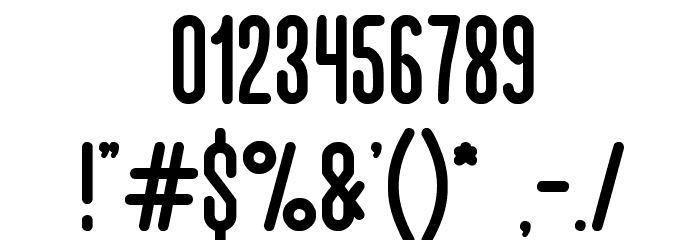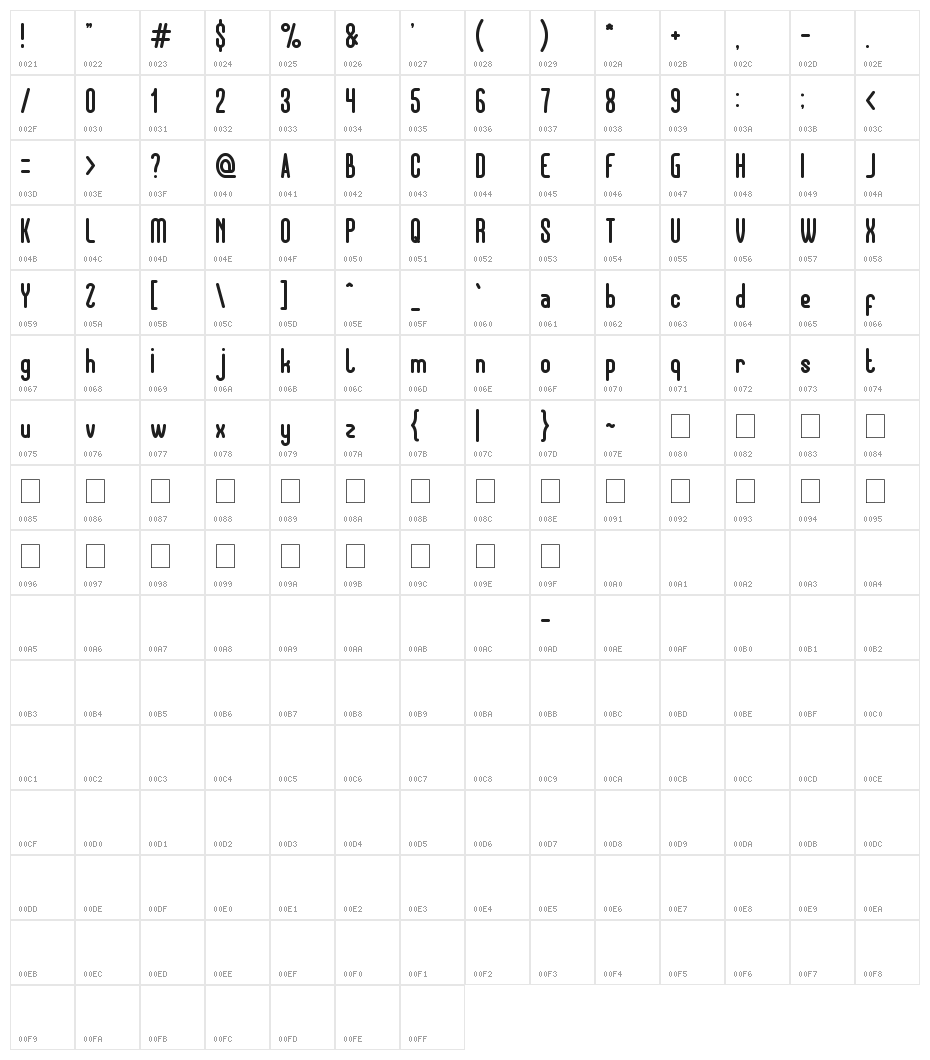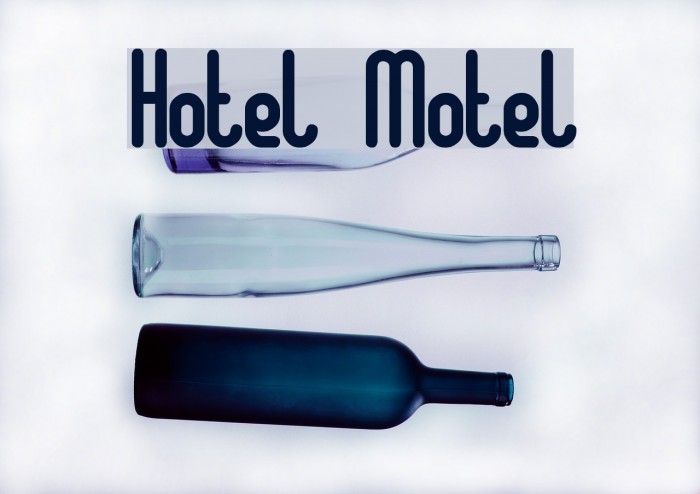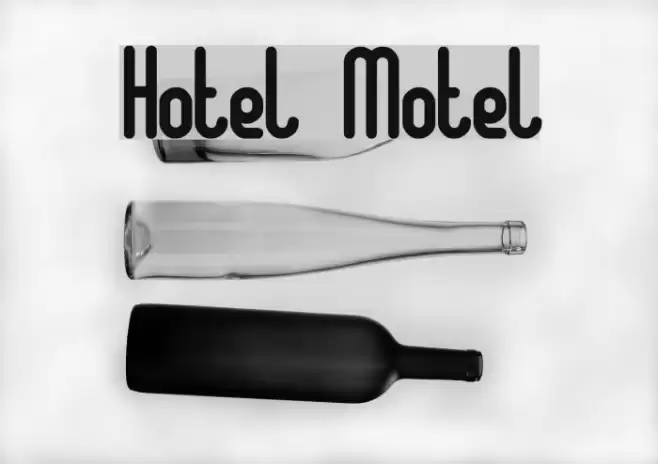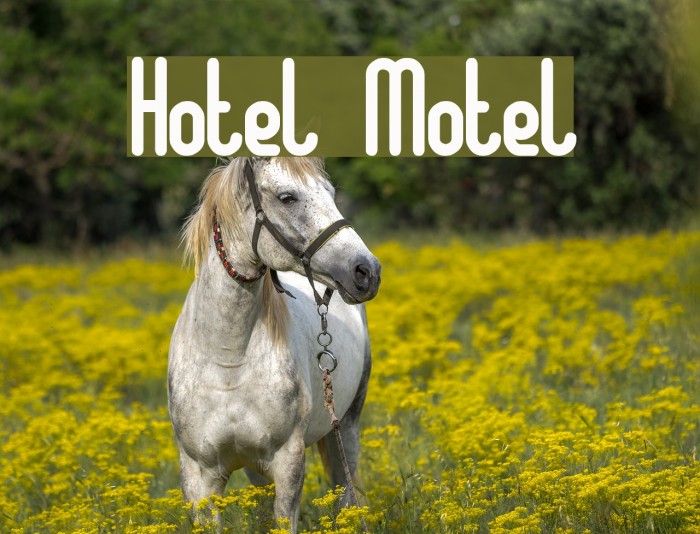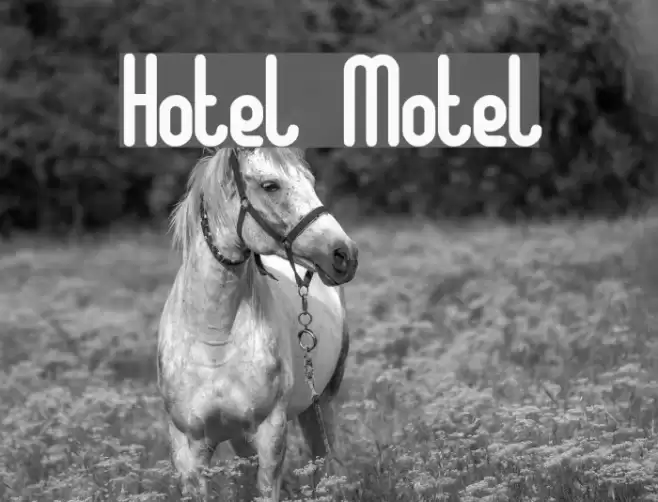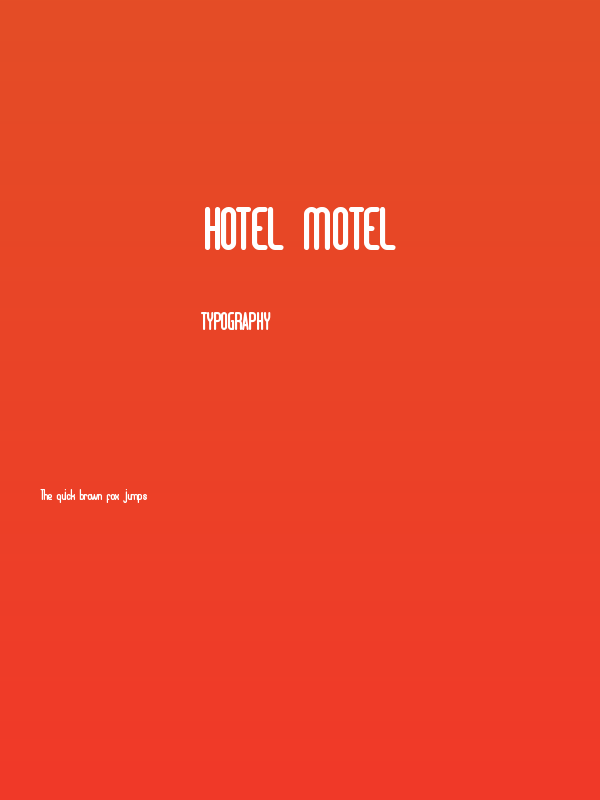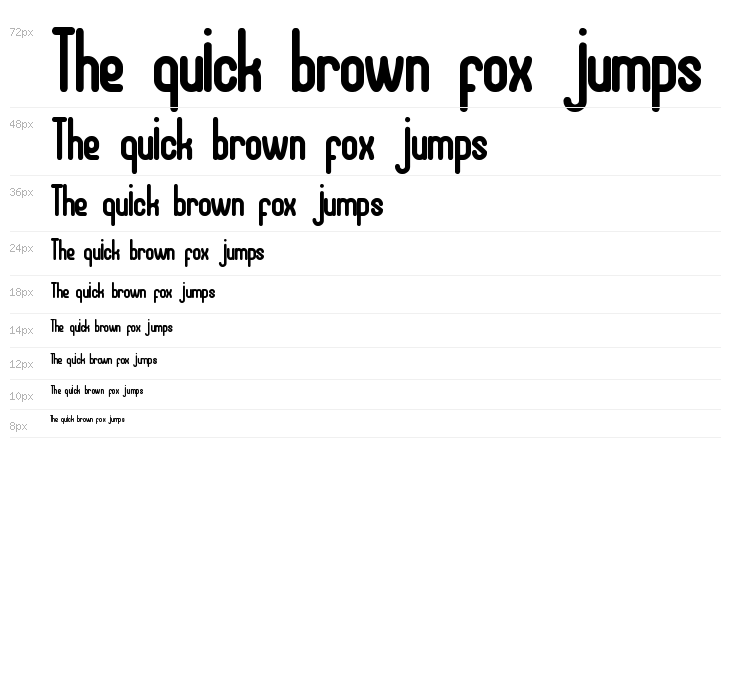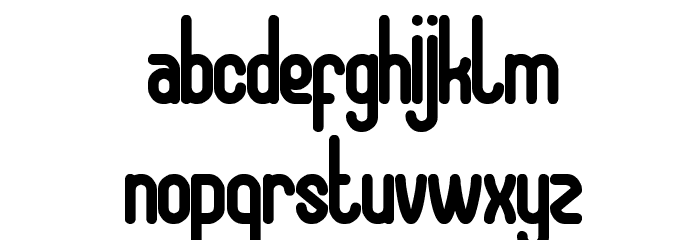
Hotel Motel Font
Hotel Motel Description
This font features a unique and playful design with rounded edges and a bold presence. The characters are evenly spaced, creating a harmonious and cohesive look. The uppercase and lowercase letters maintain a consistent style, with a slight retro feel that adds charm and personality. The numbers and special characters are designed to match the overall aesthetic, making it versatile for various uses. Its bold strokes and rounded corners give it a friendly and approachable appearance, suitable for eye-catching designs.
| Overall Style | Retro, Playful |
| Proposed Projects | Ideal for branding, posters, signage, and any project requiring a fun and engaging typeface. |